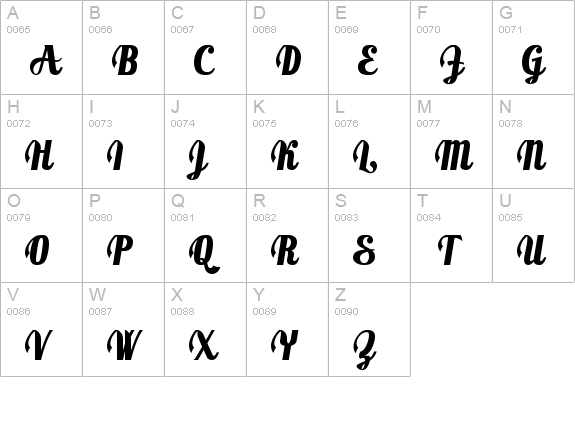
Marmellata (Jam)_demo Font Details
Marmellata (Jam)_demo font is a delightful and playful typeface that will add a touch of whimsy to any design project. With its charming and hand-drawn letterforms, this font exudes a sense of homemade goodness and nostalgia. The organic curves and uneven strokes give it a unique and artisanal feel, making it perfect for a variety of creative applications. Whether you're designing a logo for a boutique jam company, creating a cute and quirky invitation, or adding a touch of sweetness to your social media graphics, Marmellata (Jam)_demo font is sure to capture attention and bring a smile to anyone's face. What's even better is that this delightful font is available for free! Yes, you read that right. Marmellata (Jam)_demo font can be freely downloaded from FontsMarket.com. Now you can enjoy the joyous and playful nature of this font without any cost. So why wait? Give your designs a fruity and fun twist with Marmellata (Jam)_demo font. Download it today from FontsMarket.com and let your creativity jam!